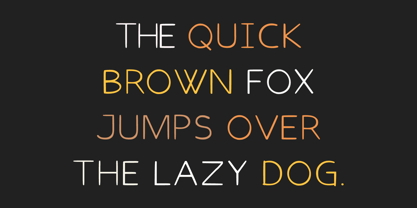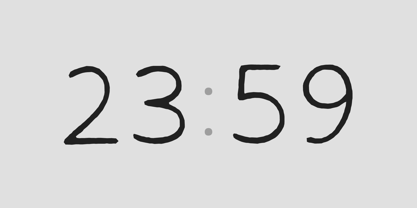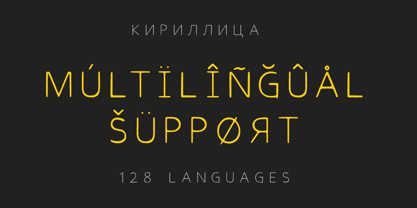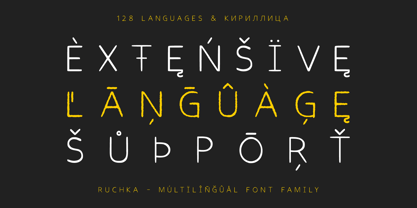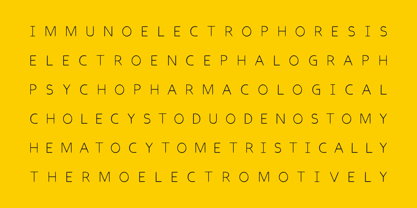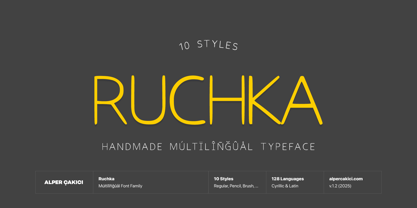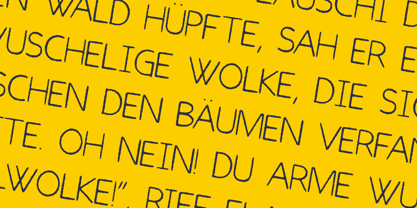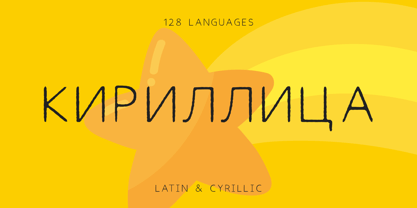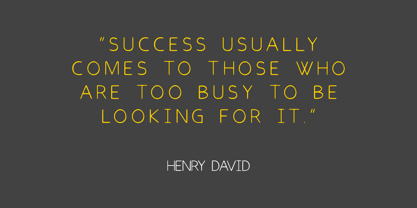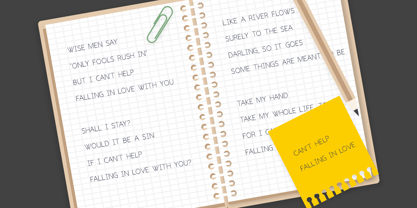
Ruchka
by AlperCakici
The Ruchka Font Family was designed by Alper Çakıcı and published by AlperCakici. Ruchka contains 10 styles and family package options. More about this family
Ruchka is a charming handwritten font family designed to bring warmth, personality, and playful character to every creative project. With smooth curves, expressive strokes, and an authentic hand-drawn feel, Ruchka blends friendliness with versatility. The family includes 10 handcrafted styles: Ruchka Regular, Ruchka Italic, Ruchka Angular, Ruchka Angular Italic, Ruchka Brush, Ruchka Brush Italic, Ruchka Pencil, Ruchka Pencil Italic, Ruchka Rough, and Ruchka Rough Italic. From soft and cozy to bold and textured, each style adds its own handwritten flavor—perfect for branding, packaging, editorial work, children’s design, and expressive social content. With support for 128 languages, Ruchka is ready for global and multicultural projects. Whether your work calls for sweetness, charm, or artisan texture, Ruchka lifts designs with an approachable, joyful touch.
Designers: Alper Çakıcı
Foundry: AlperCakici